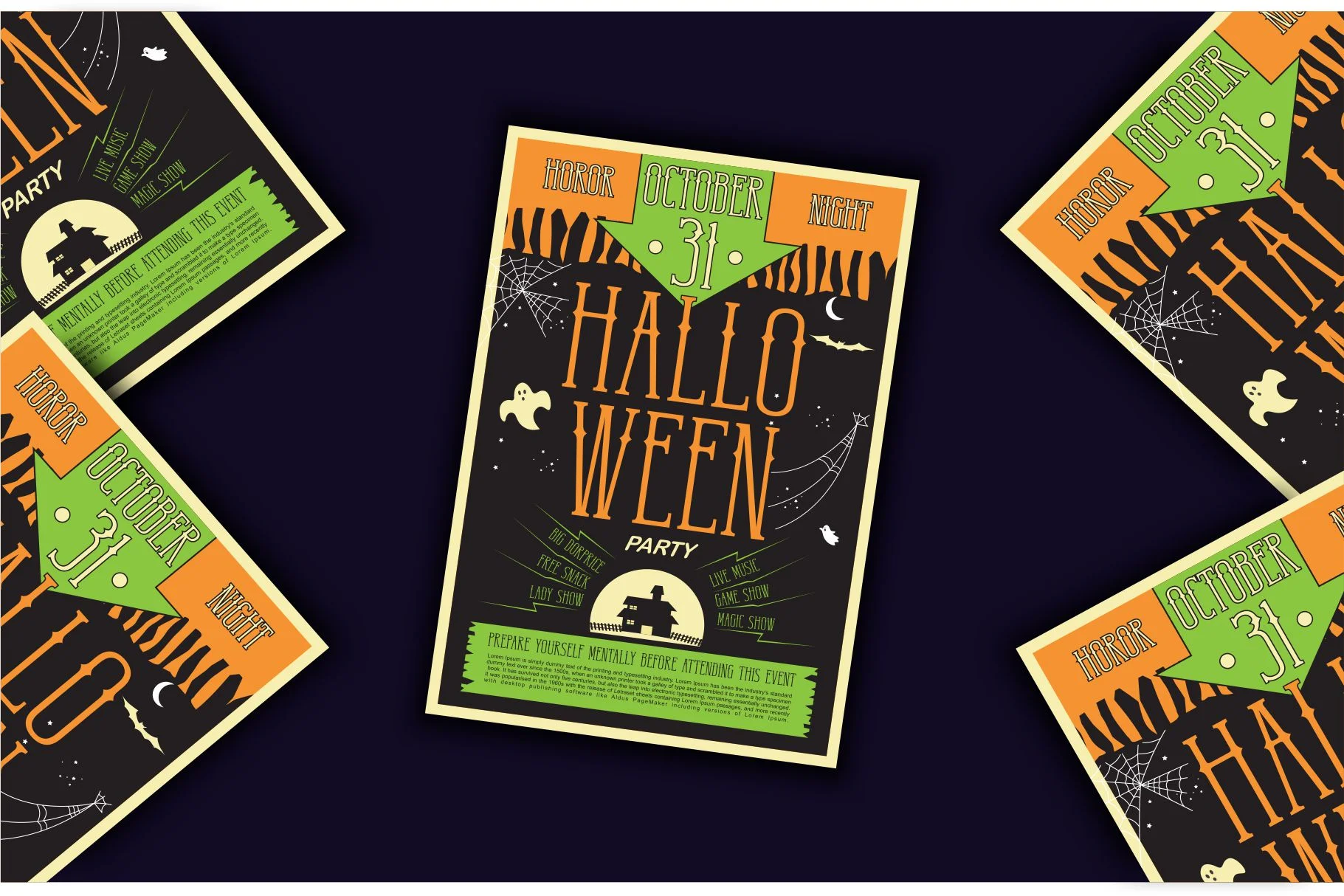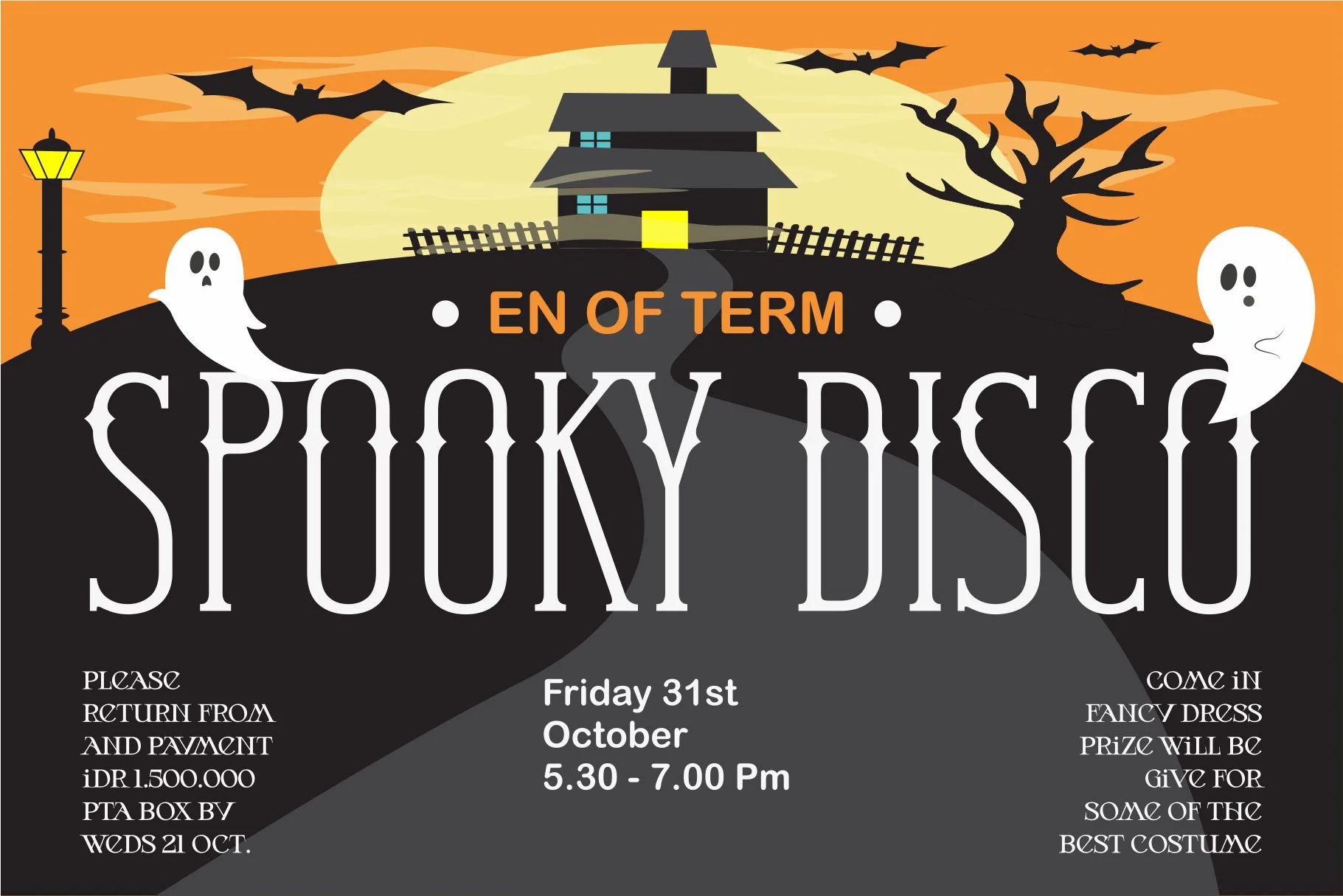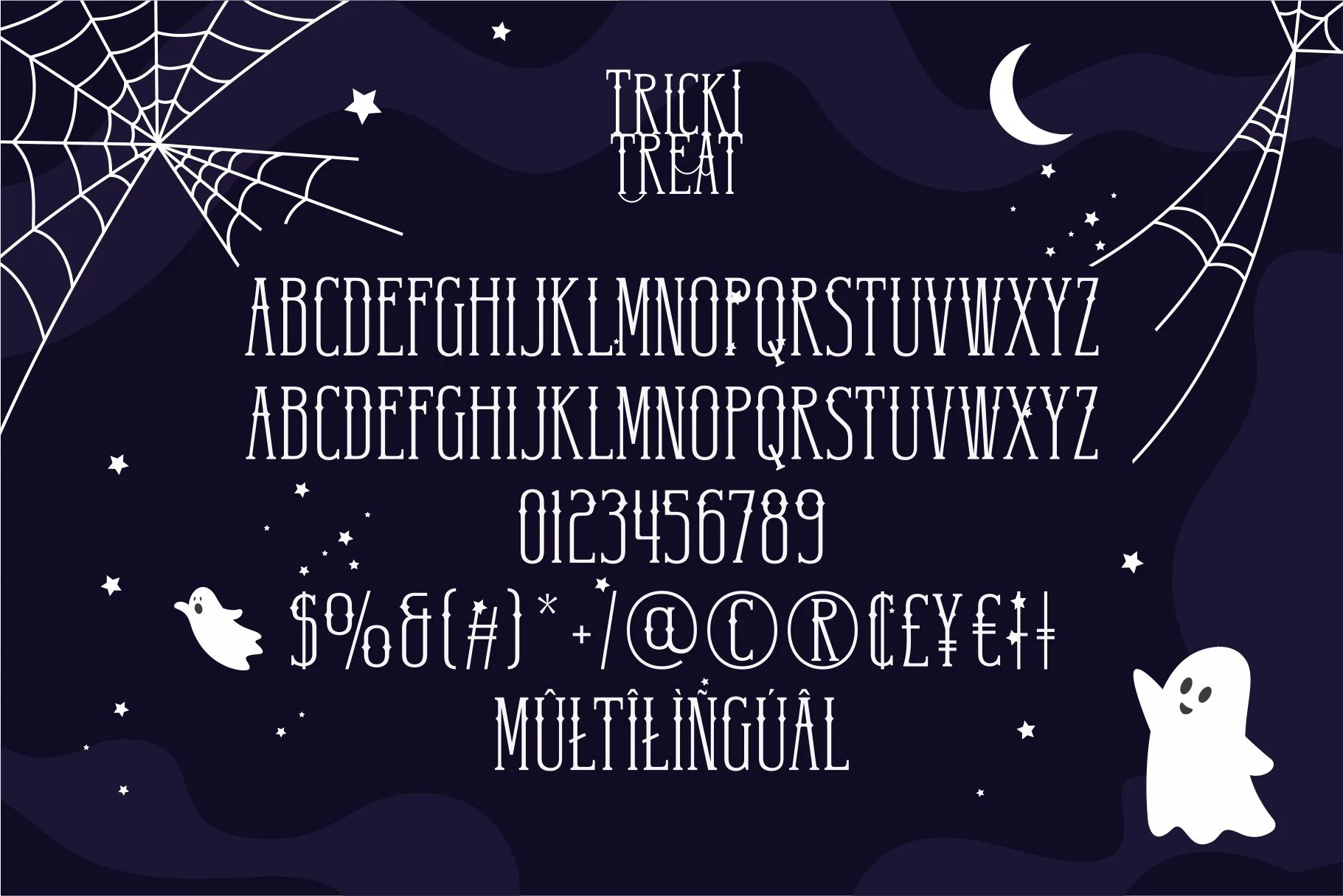
Tricki Treat
Tricki Treat is a simple, bold display font specifically intended for Halloween-themed creative projects. It is characterized by its elongated, narrow letterforms with sharp, pointed serifs that evoke a slightly eerie yet playful aesthetic. The design is described as having a blackletter influence adapted for modern display needs. It is ideally suited for:
- Halloween posters and flyers.
- Album covers or movie titles.
- Themed mock-ups and high-impact branding for spooky events.